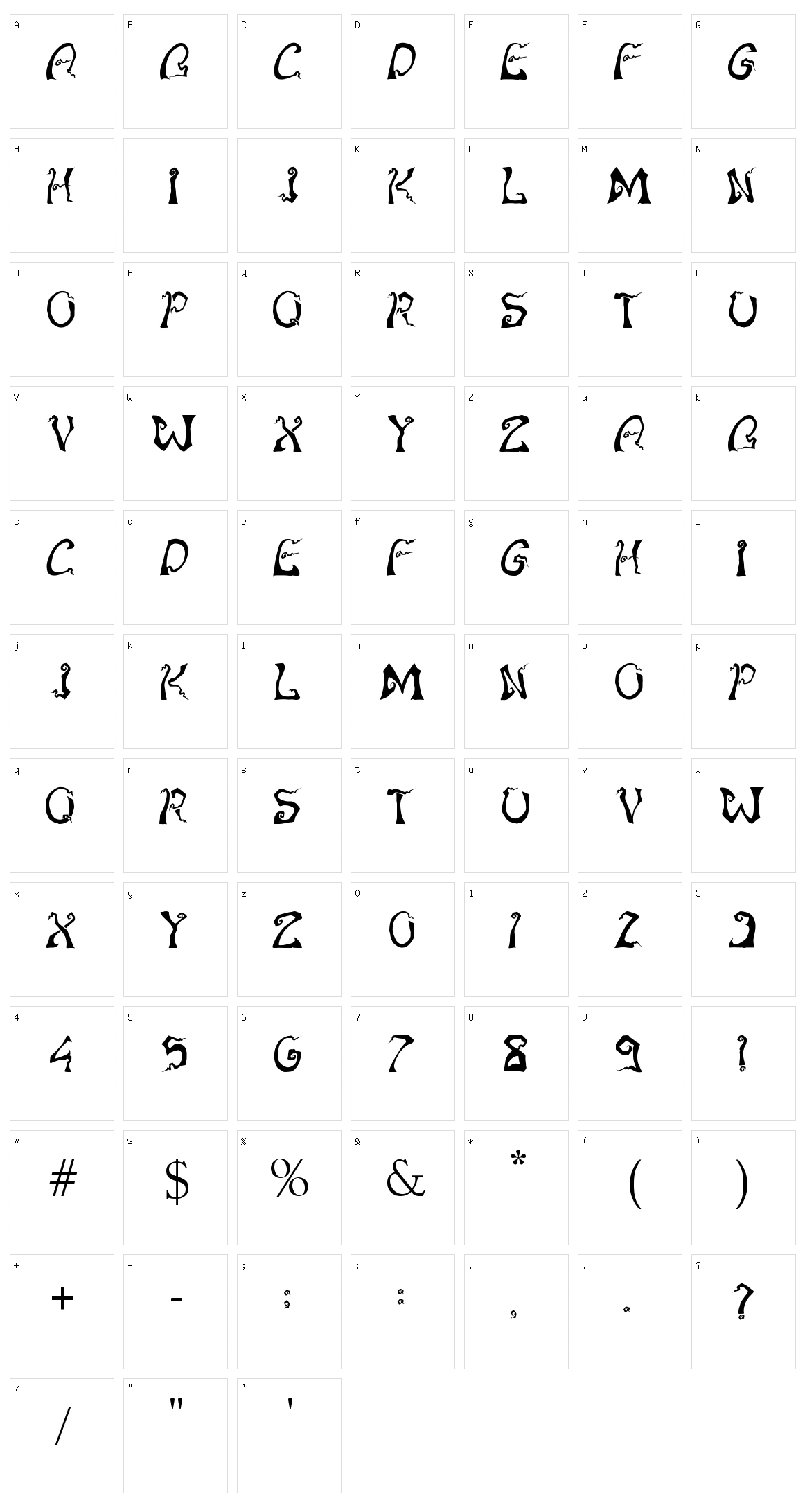
The free font Stranglethorn is carefully designed by Krakenbox Std, showcasing a thoughtful balance of creativity and usability and falls under the Halloween font style. When you download the ZIP file, it contains only 19.99 KB of font files, making it lightweight and quick to download. Please review the license details below to understand permitted usage and distribution rights. If license information is not available, we recommend using this font for personal projects only or contacting the author directly for commercial usage permissions.